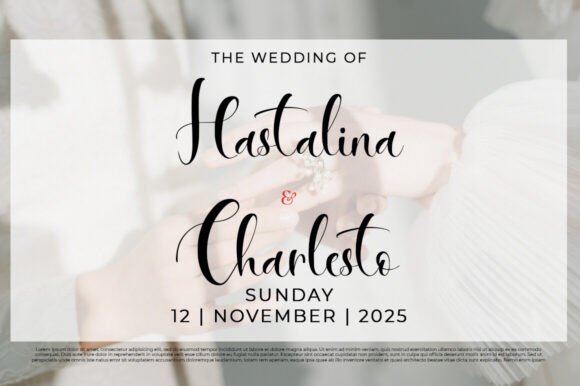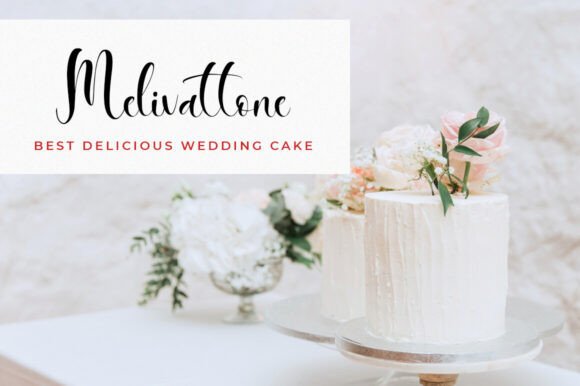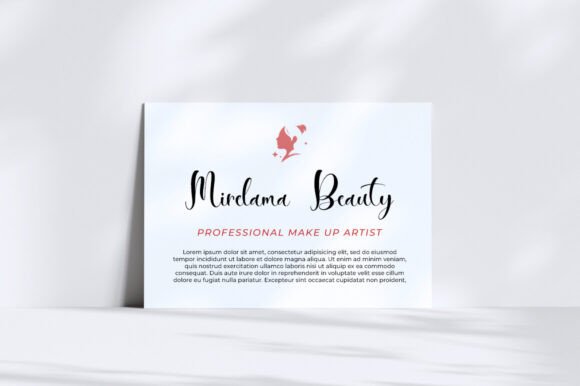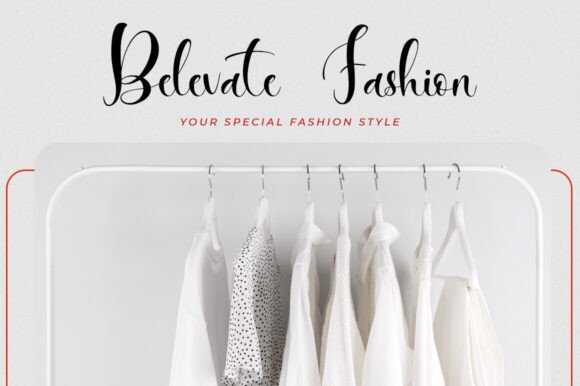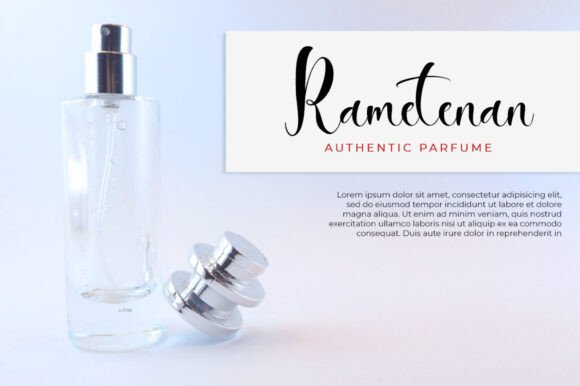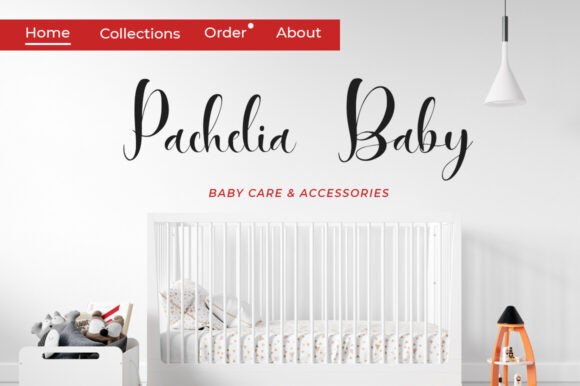
Introducing Dalmatian Script: Elevate Your Designs with Elegance and Sophistication
In the world of design, typography plays a crucial role in conveying the message and aesthetic of a project. For designers and crafters looking to add a touch of elegance, class, and modernity to their work, the Dalmatian Script font is an exceptional choice. This beautiful script font is designed to bring a personal touch to your latest art project, making it stand out with its unique and sophisticated look.
What is Dalmatian Script?
Dalmatian Script is a stylish font style that embodies the essence of luxury and refinement. Its elegant and fluid lines make it perfect for a wide range of projects, from logos and branding to invitations, stationery, and wedding designs. The font’s modern look and feel ensure that it can be seamlessly integrated into various design concepts, adding a touch of sophistication and glamour.
Key Features of Dalmatian Script
• Elegant and Classy Design: The Dalmatian Script font boasts an elegant and classy design, making it ideal for projects that require a sophisticated look.
• Modern Look and Feel: Its modern aesthetic ensures that your designs stay current and on-trend.
• Gorgeous Typography: The font offers beautiful typography that can elevate any design project.
• Versatile: Dalmatian Script is perfect for a variety of projects, including logos & branding, invitations, stationery, wedding designs, social media posts, advertisements, product packaging, product designs, labels, photography, watermarks, and special events.
Uses of Dalmatian Script
The versatility of Dalmatian Script makes it an excellent choice for numerous design applications. Here are some of the ways you can use this stunning font:
• Logos and Branding: Create a lasting impression with a logo that exudes elegance and sophistication.
• Invitations and Stationery: Add a touch of luxury to your invitations, business cards, and other stationery.
• Wedding Designs: Make your wedding designs truly special with a font that embodies love, elegance, and joy.
• Social Media Posts: Elevate your social media presence with stylish and engaging posts.
• Advertisements: Create eye-catching advertisements that capture the attention of your audience.
• Product Packaging and Designs: Add a touch of sophistication to your product packaging and designs.
• Labels and Photography: Use Dalmatian Script for labels and watermarks to add a professional touch to your photography.
• Special Events: Create memorable designs for special events, such as galas, fundraisers, and more.
Why Choose Dalmatian Script?
With so many fonts available, why choose Dalmatian Script? Here are a few compelling reasons:
• Unique and Sophisticated: Dalmatian Script offers a unique and sophisticated look that can set your designs apart.
• Easy to Read: Despite its elegant design, the font remains easy to read, making it perfect for body text and headlines.
• Highly Versatile: The font’s versatility ensures that it can be used across various design projects.
• Modern and On-Trend: Dalmatian Script’s modern look and feel ensure that your designs stay current and fashionable.
Dalmatian Script is a stylish and elegant font that can elevate your designs to new heights. Its unique and sophisticated look, combined with its versatility and modern aesthetic, make it an excellent choice for designers and crafters. Whether you’re working on a logo, invitation, wedding design, or social media post, Dalmatian Script is sure to add a touch of luxury and refinement to your project. So, why wait? Download Dalmatian Script today and take your designs to the next level!